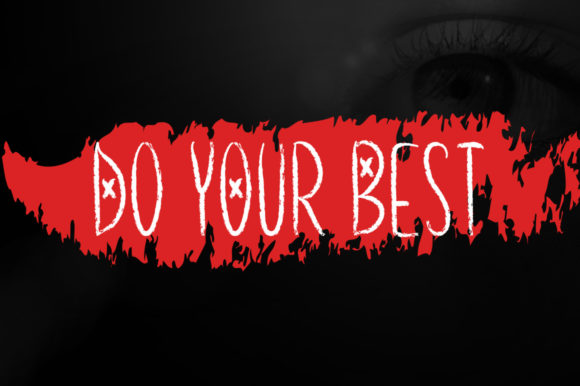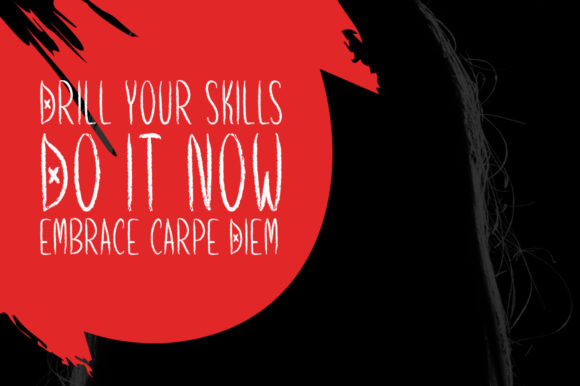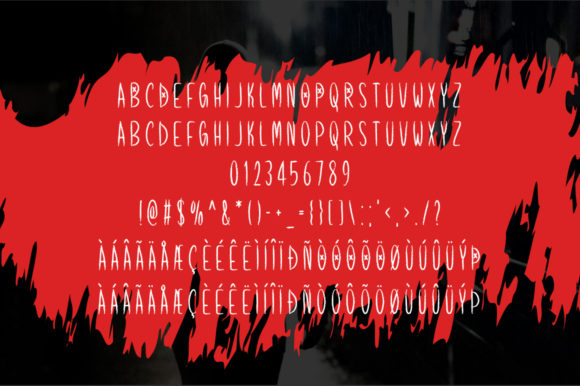
The Bloodhound Font: A Designer’s New Best Friend
I’ll never forget the frustration of working on a project, hours pouring into every detail, only to hit a roadblock: finding the perfect font. It was like trying to find a needle in a haystack. My client wanted something bold, yet elegant; something that would make their brand stand out. That’s when I stumbled upon the Bloodhound font, and let me tell you, it’s been a game-changer.
First Impressions: A Review of Bloodhound
As a designer, I’m always on the lookout for fonts that can elevate my work. Here’s my honest review of Bloodhound:
- ✨ Unique Character: Bloodhound has a distinct personality that sets it apart from other display fonts.
- ✅ Versatility: It’s perfectly suited for a wide range of applications, from stationery and logos to t-shirts and posters.
- 💡 Legibility: Despite its bold nature, Bloodhound remains surprisingly legible, even at smaller sizes.
- 🤔 Limited Use Cases for Body Text: While Bloodhound shines as a display font, it’s not ideal for body text due to its boldness.
- ⚠️ Glyph Support: Some users might find the glyph support a bit limited, but this can be addressed with OpenType features.
The Story Behind Bloodhound
The Bloodhound font was created with the modern designer in mind. Its unique character and versatility make it perfect for a wide range of applications. While the exact inspiration might be unclear, it’s evident that the creators aimed to craft a font that would stand out in any design.
Q: What makes Bloodhound unique?
A: Bloodhound’s distinct personality and versatility set it apart from other display fonts.
Q: Can I use Bloodhound for body text?
A: While possible, Bloodhound is best suited for display text due to its bold nature.
Q: Does Bloodhound support OpenType features?
A: Yes, Bloodhound supports OpenType features like ligatures and stylistic alternates.